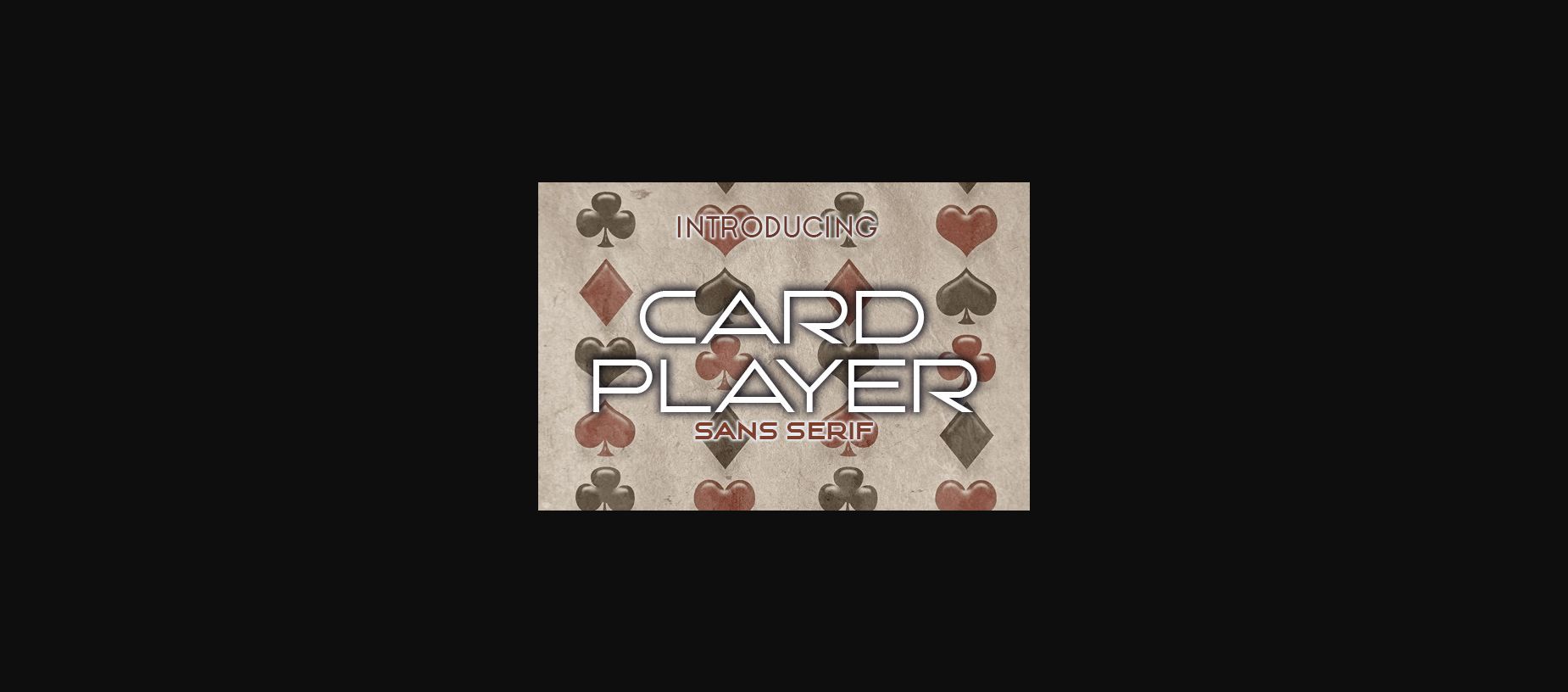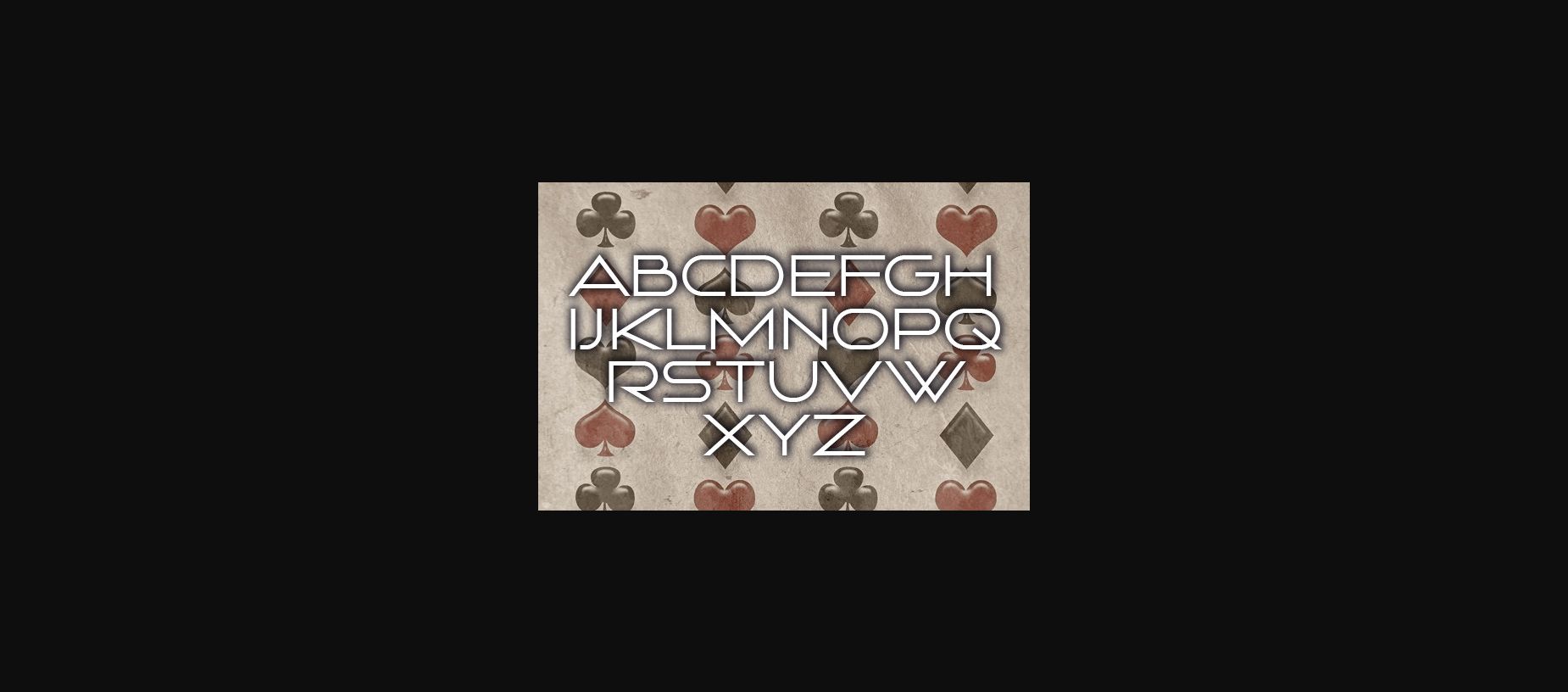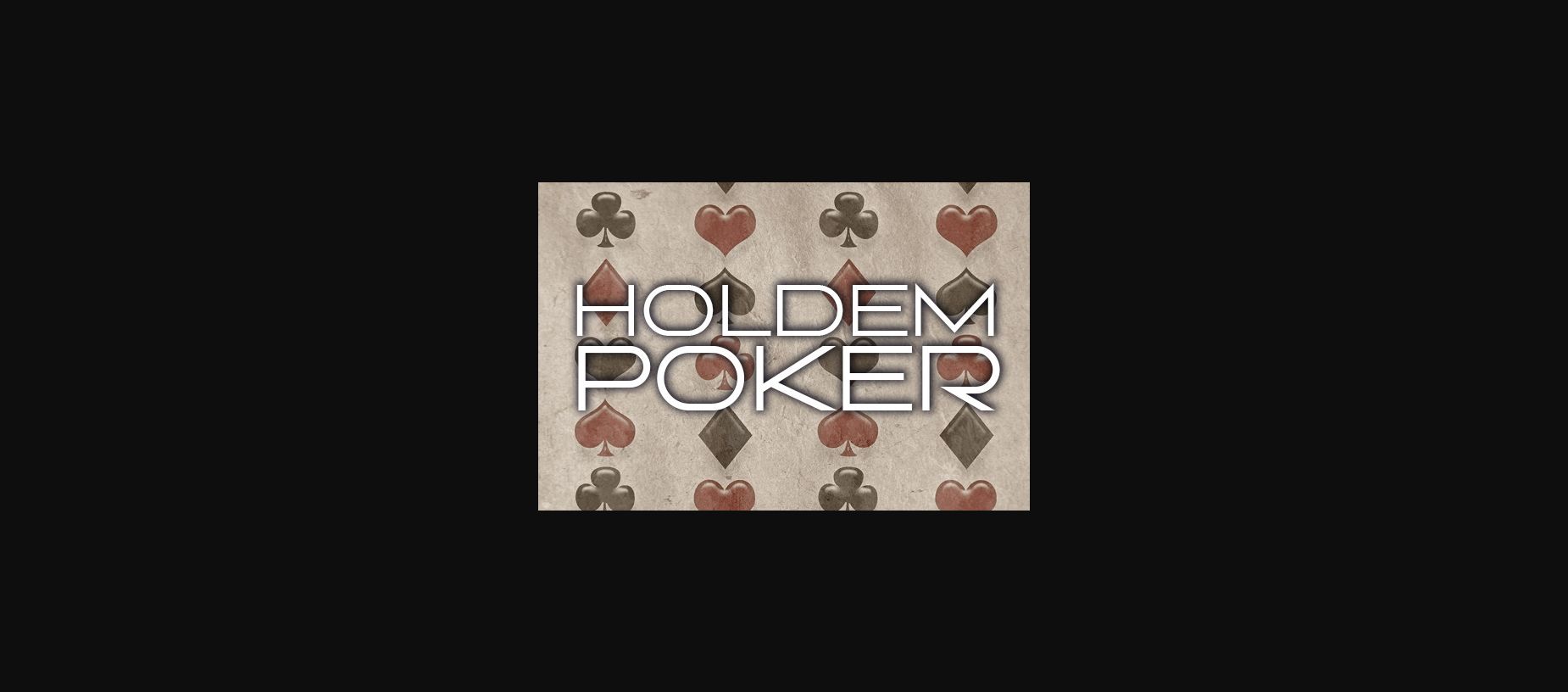
Card Player Font
About Card Player Font
Card Player is an elegant sans serif font, that features a very delicate and classy look. Not too thin and not too thick, balanced and varied, Card Player was designed to enhance the beauty of your projects